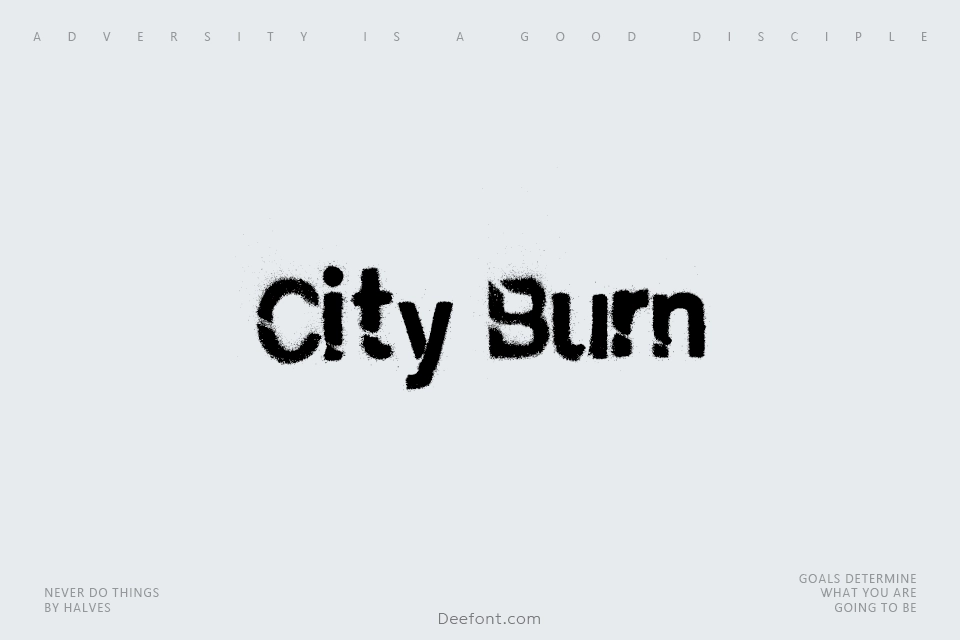
City Burn Font
City Burn is a dynamic display typeface from the Fancy category that delivers striking visual impact through its bold, destructive design aesthetic. Originally created by alien foundery and first featured on DaFont in December 2008, this shareware font has garnered over 540,000 downloads. City Burn features 230 glyphs and presents an edgy, unconventional character set perfect for eye-catching headlines, poster designs, and creative branding projects that demand attention and personality. The typeface’s aggressive letterforms and unique styling make it an excellent choice for designers seeking distinctive typography with contemporary flair.